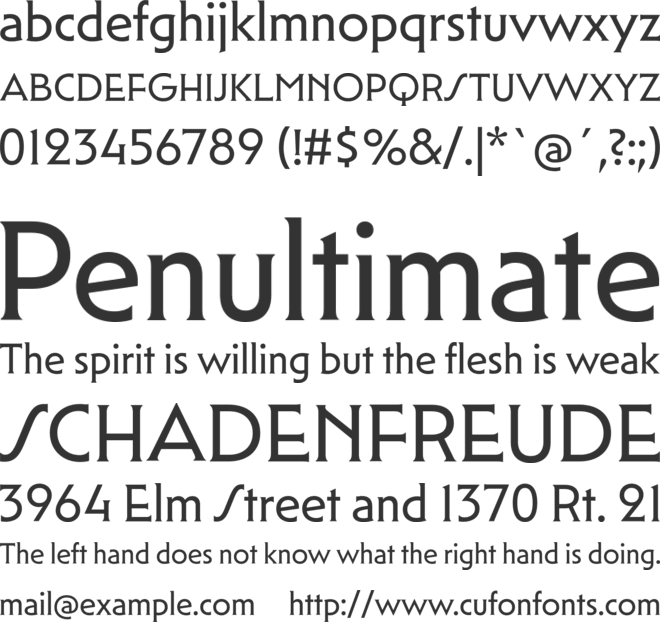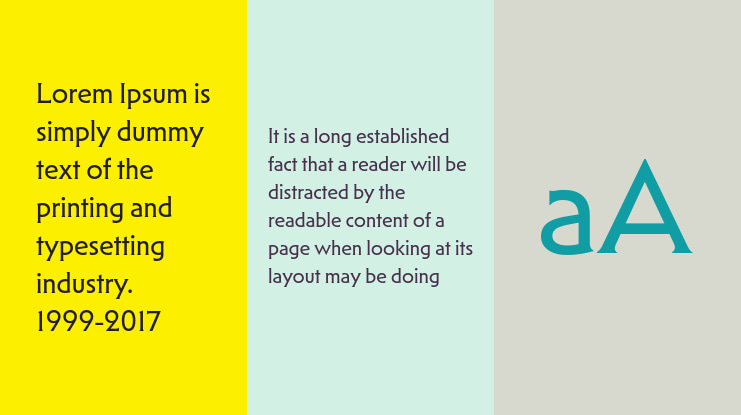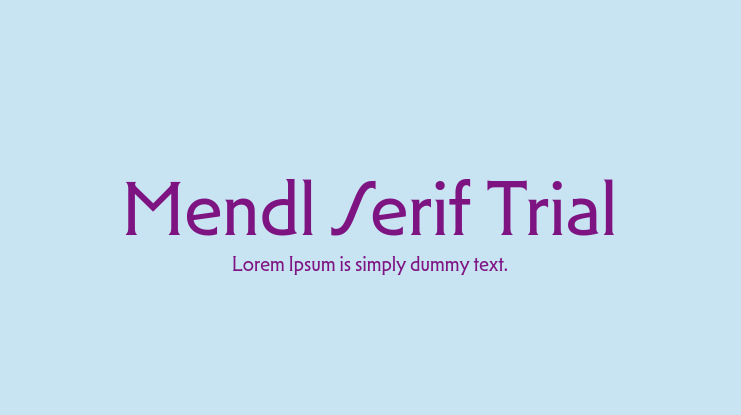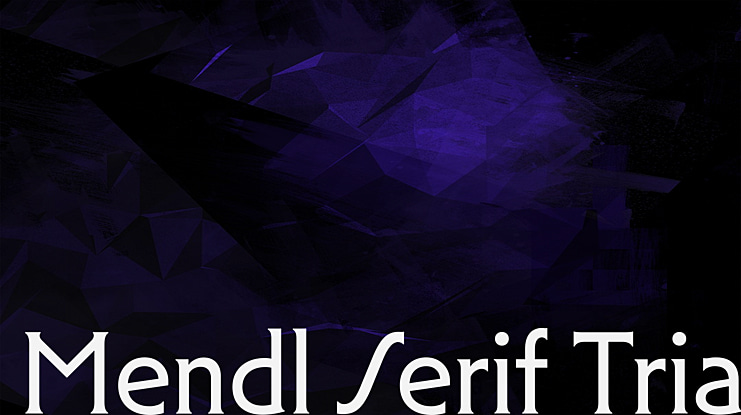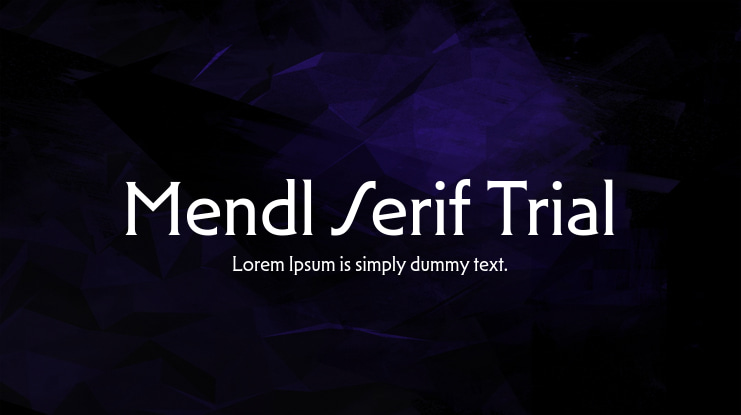
Mendl Serif Trial Font Family
Dalton Maag Ltd
This is an easygoing serif for display and text. It has a dependable and uncompromising style, with controlled letterforms and modern touches. It looks amazing in logos, magazines, and movies . Coverto Font would be perfect for branding, headlines, Captions, paragraph, and posters . The various weights allow you to experiment with a wide range of applications. It’s created to make an impression without sacrificing its beauty and readability. It’s shown a clean, minimalist, warmth, quirky, yet still purposed to be versatile.
Mendl Serif Trial font has variable features, including the following styles: Thin, ExtraLight, Light, Regular, Medium, SemiBold, Bold, ExtraBold, Black.